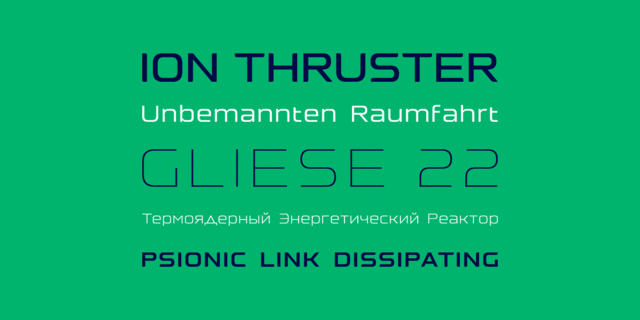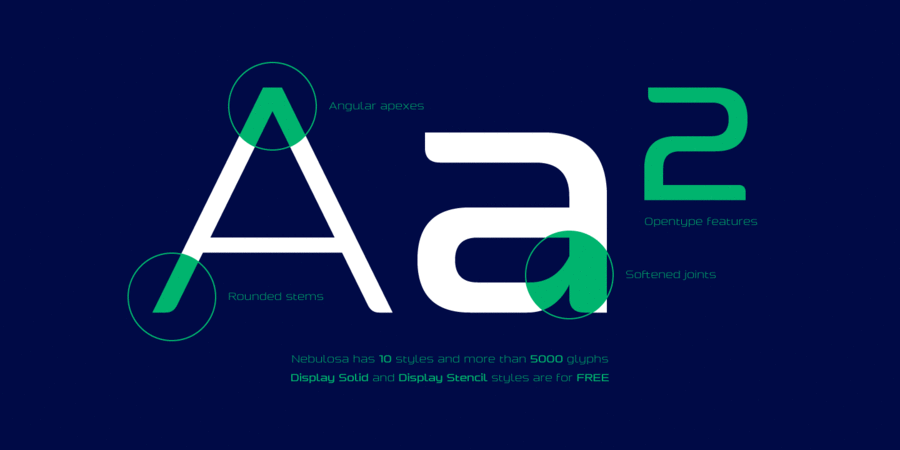
This is a futuristic, slightly extended sans serif typeface with semi rounded endings that provide a softened aesthetic without losing its solidity. Nebulosa has been conceived to be most suitable for logos, headlines and display design pieces as well as short length text blocks. The typeface consists of 10 font styles, 8 of which containing small caps, ligatures and glyph coverage for Latin and Cyrillic languages and 2 of which are free for desktop use. The font family has been designed for Graviton Font Foundry by Pablo Balcells in 2020.
NASA
flat, accurate, logical, cold, automatic, technogenic, solid, static, crisp, stable, thin, easy, urban, modern, machine, engineering, urbanistic, schematic, glass, fragile, futuristic, transparent, calm, wire, smooth, flexible, clean, fashionable, laconic, reliable, self-assured, steel, space, indifferent, simple, convincing, serious, strong, industrial, iron, railway, fast, high-speed, sportive, tough, ambitious, cinematic, racing, resolute, vigorous, daring
constructor, scheme, architecture, engineer, automation, urban studies, science, city, gadget, electronics, technology, innovations, design, statistics, tool, robot, game, space, device, IT specialist, IT, android, hardware, sci-fi, coworking, astronomy, car, industry, equipment, railway carriage, aviation, aircraft, transport, railway, x-ray, computer game, Internet, mobile communications, cinema, sport, mechanical engineering, fuel, bus, Superhero, power station, energy industry, fitness equipment, cybersport, race, rally, formula 1, cars, wheelbarrow, speed, Delivery, logistics, helmet Typeface exhibits stylistic traits: